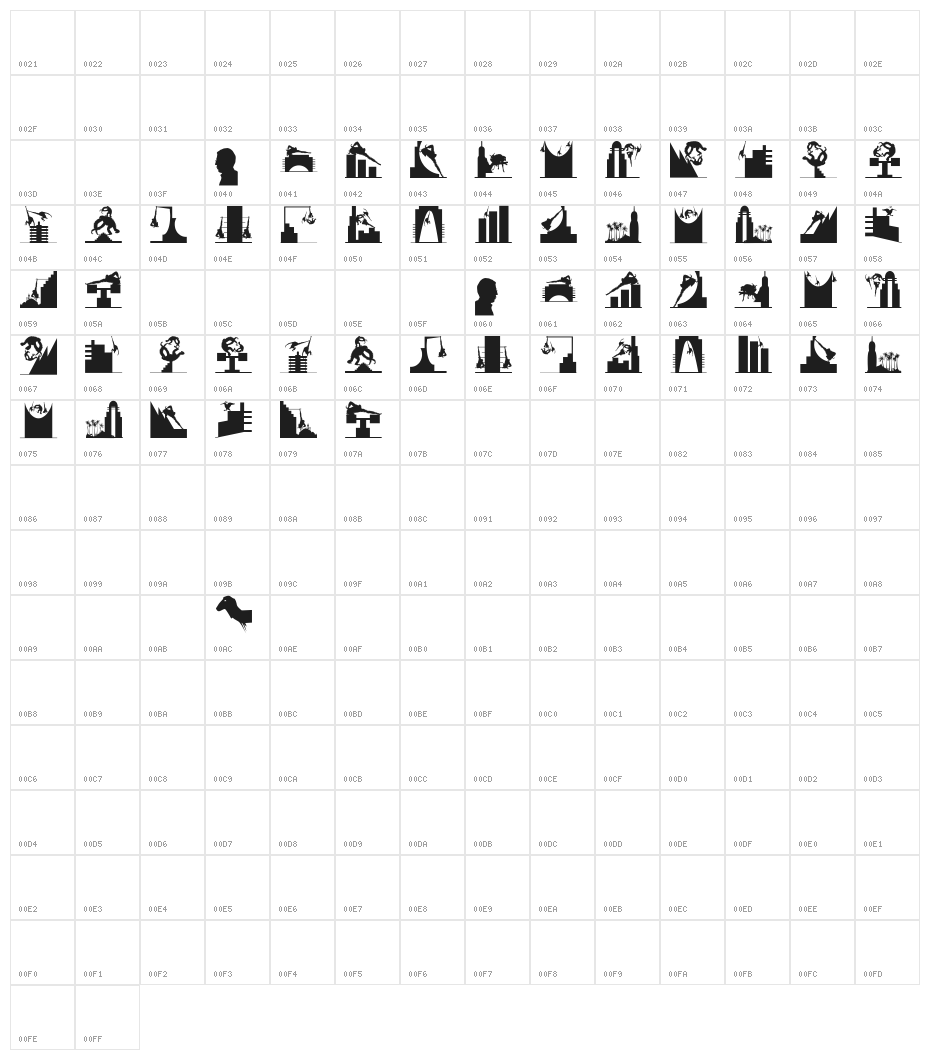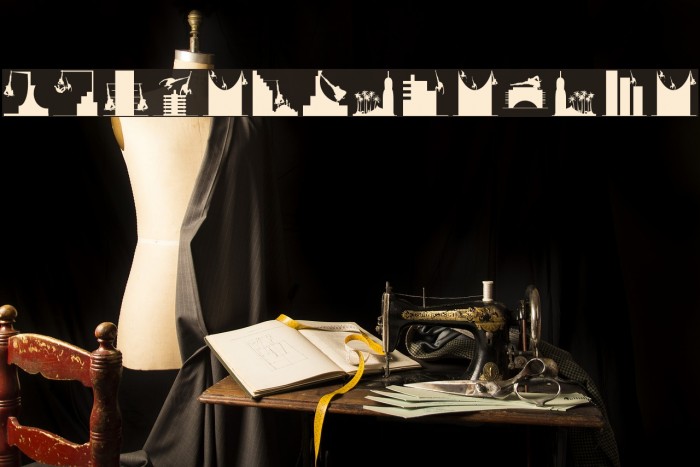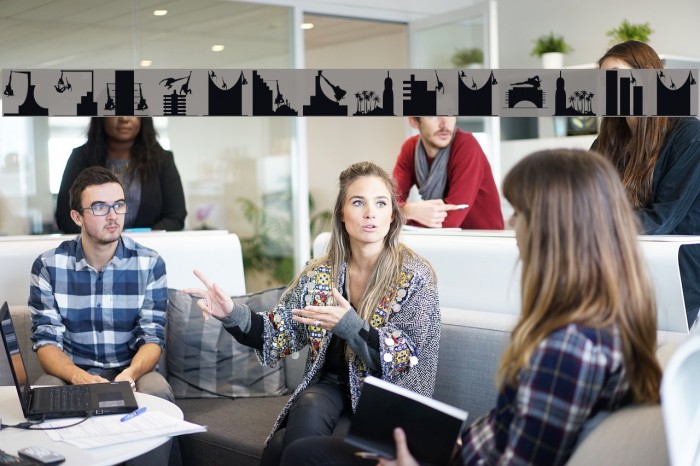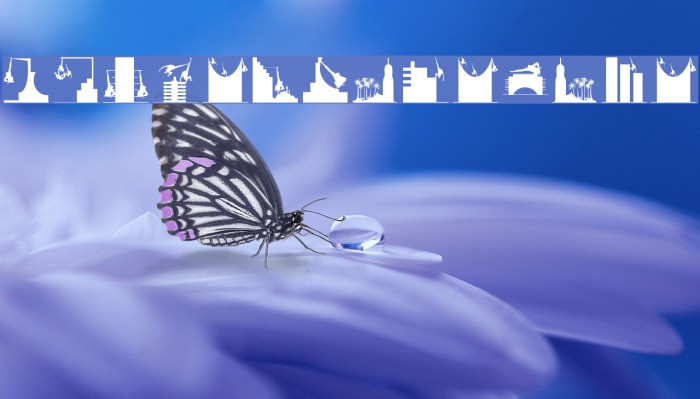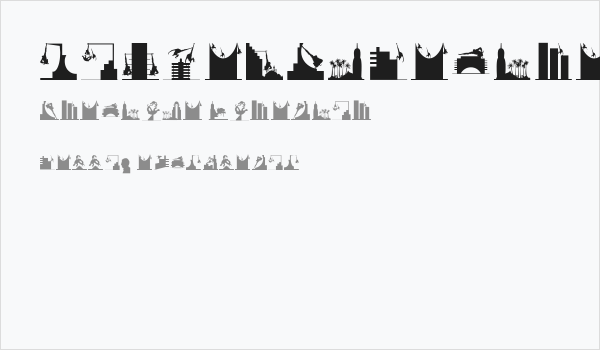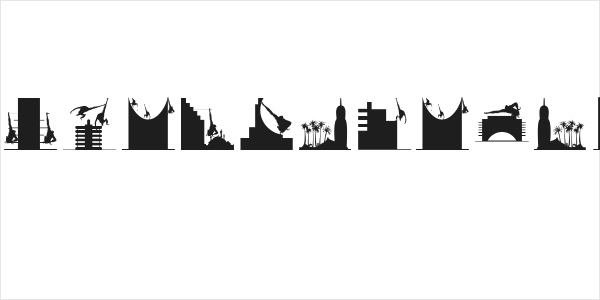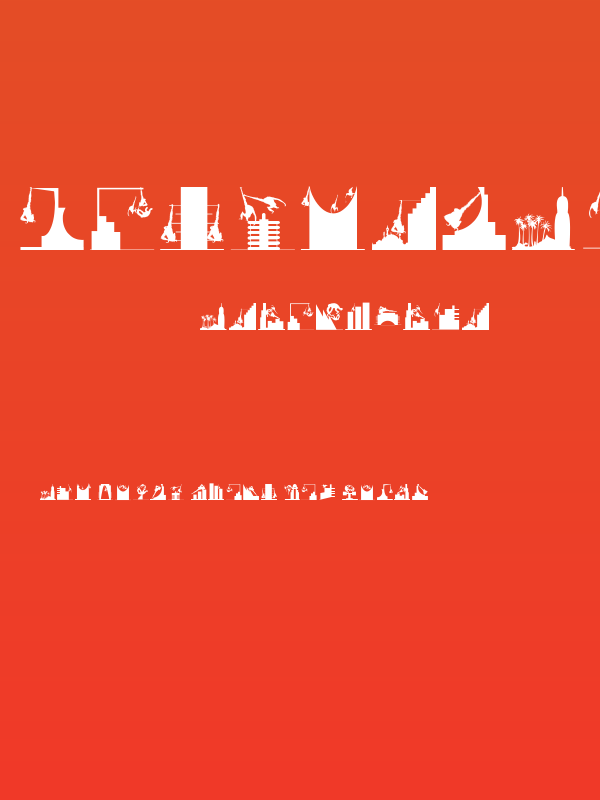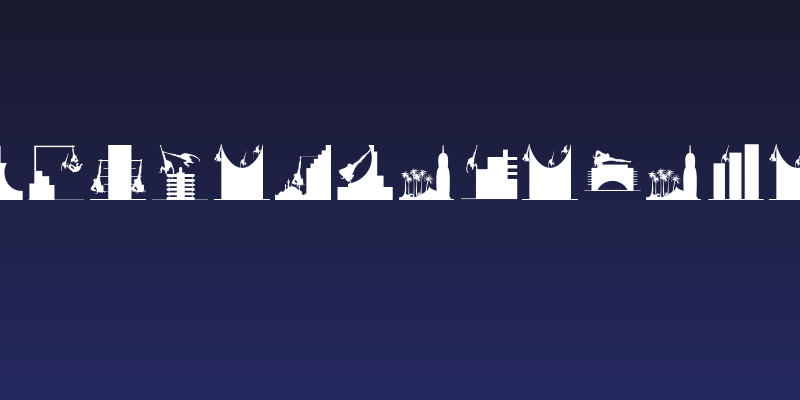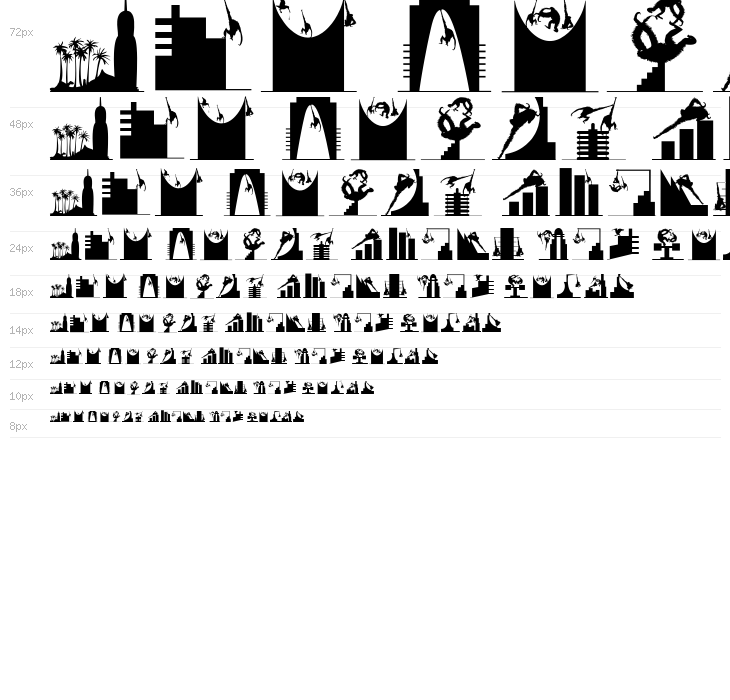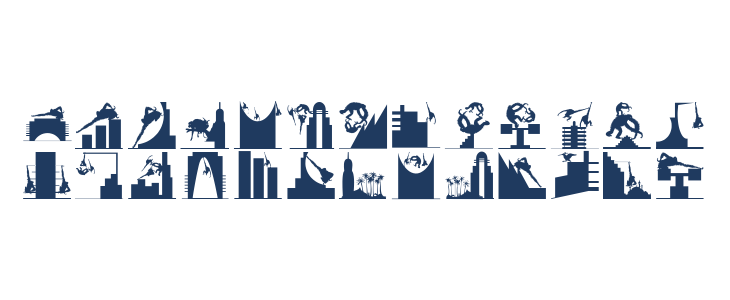
MonkeysTheatre Font
MonkeysTheatre Description
This font is a playful and imaginative decorative typeface featuring silhouettes of monkeys interacting with various architectural structures. Each character is uniquely designed, incorporating elements of urban landscapes and playful monkey figures, creating a whimsical and dynamic appearance. The font is highly illustrative, with each letterform being a small piece of art, making it ideal for creative projects that require a touch of humor and creativity. The intricate details and unique concept make it stand out as a display font, perfect for capturing attention and adding a fun element to any design.
| Proposed Projects | Ideal for children's book covers, playful posters, themed event invitations, and creative branding projects. |